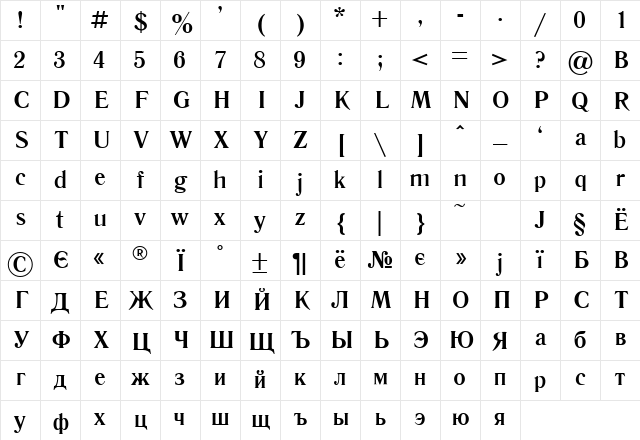
LiteraturnayaC Bold
Design Context for LiteraturnayaC
LiteraturnayaC is a composed and adaptable typeface that performs quietly and consistently across a wide range of design contexts. Its bold stroke weight gives it real presence on the page.